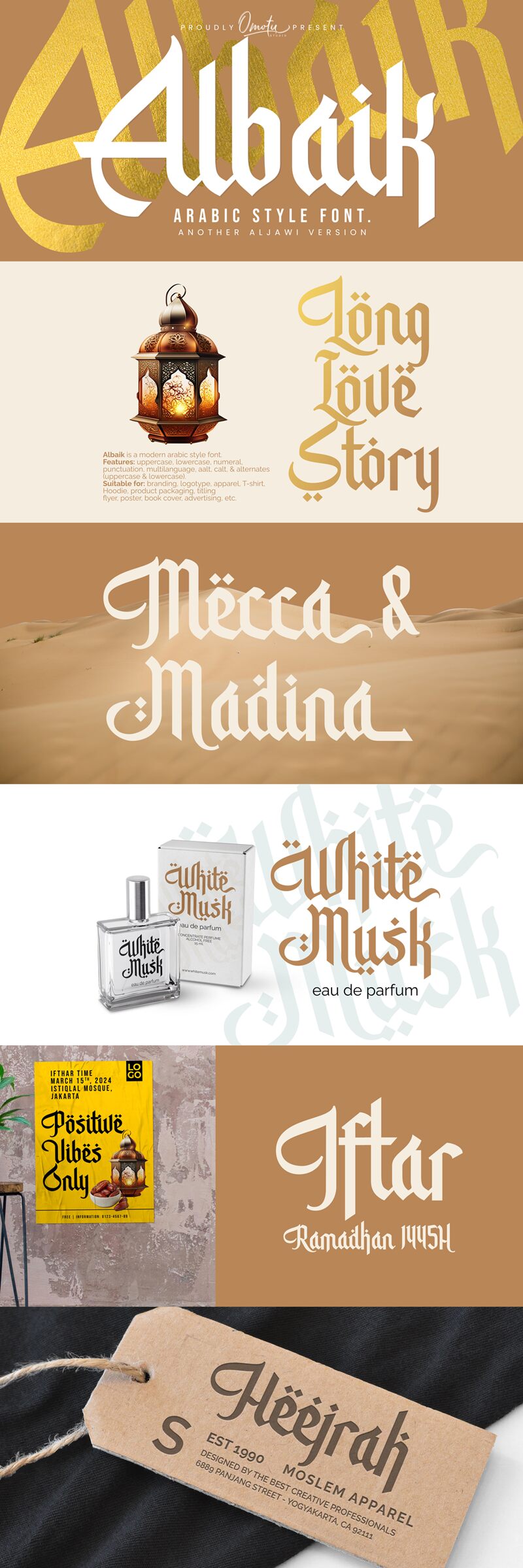
Albaik alt02
Albaik alt02 font by Omotu Studio is a free faux-Arabic foreign typeface in the Albaik family, fusing bold blackletter weight with sinuous, calligraphic curves. Heavy vertical strokes, dagger-like points, and sweeping head strokes give it a richly ornamental, almost carved-wood presence, while the tight rhythm keeps words looking like cohesive wordmarks rather than loose letters. It’s dramatic, dark, and instantly atmospheric, especially at larger sizes where the subtle curves and hooks can really breathe.
Using Albaik alt02, you can conjure a cinematic Middle Eastern flavor for restaurant logos, food trucks, hookah lounge signage, event posters, packaging, and gaming or YouTube titles. This free font shines on short phrases and names where you want a strong identity hit in just a few letters. Pair it with a simple geometric sans serif for menus, captions, or interface text to keep everything legible while the headline does the storytelling.